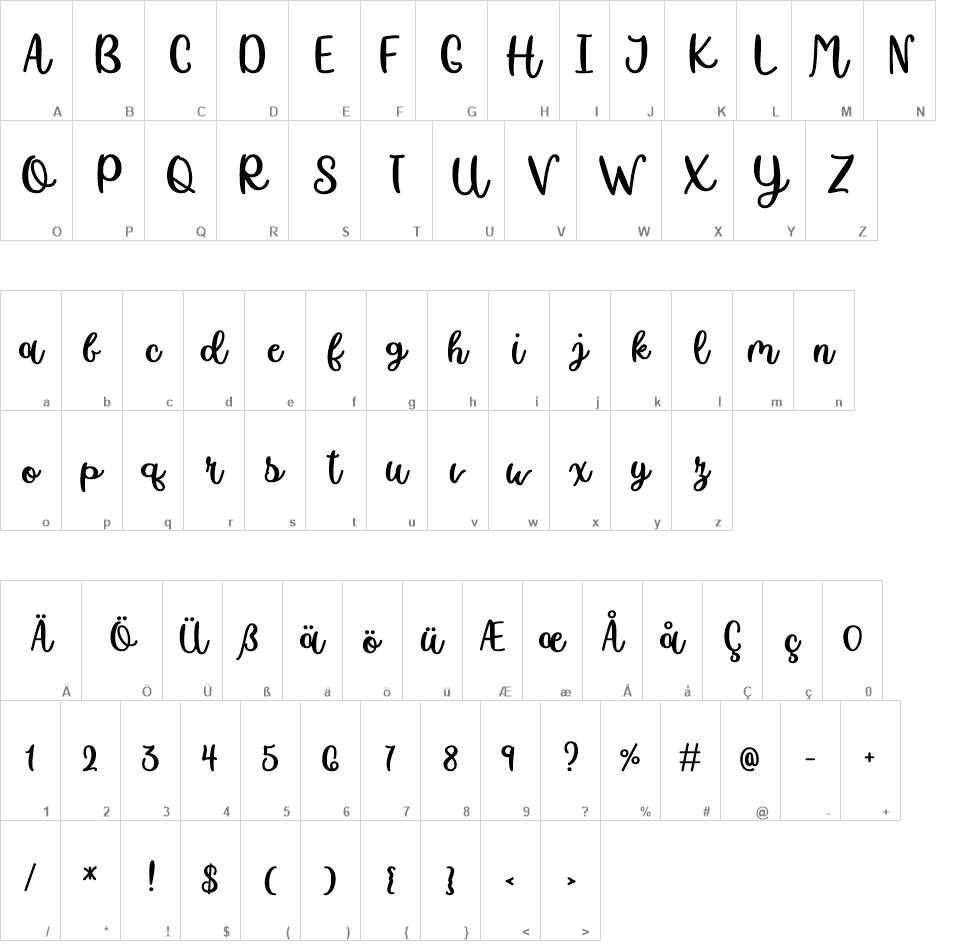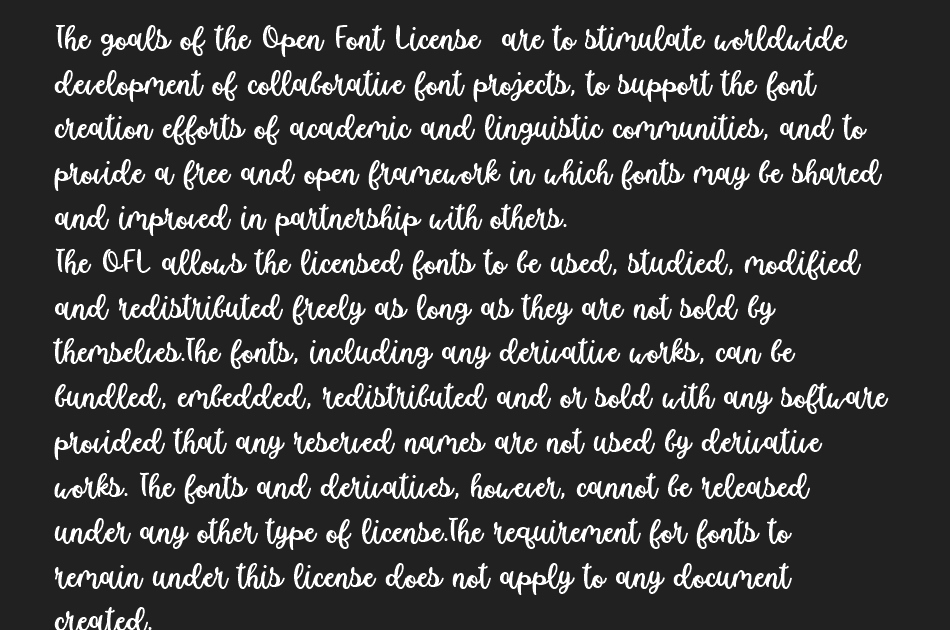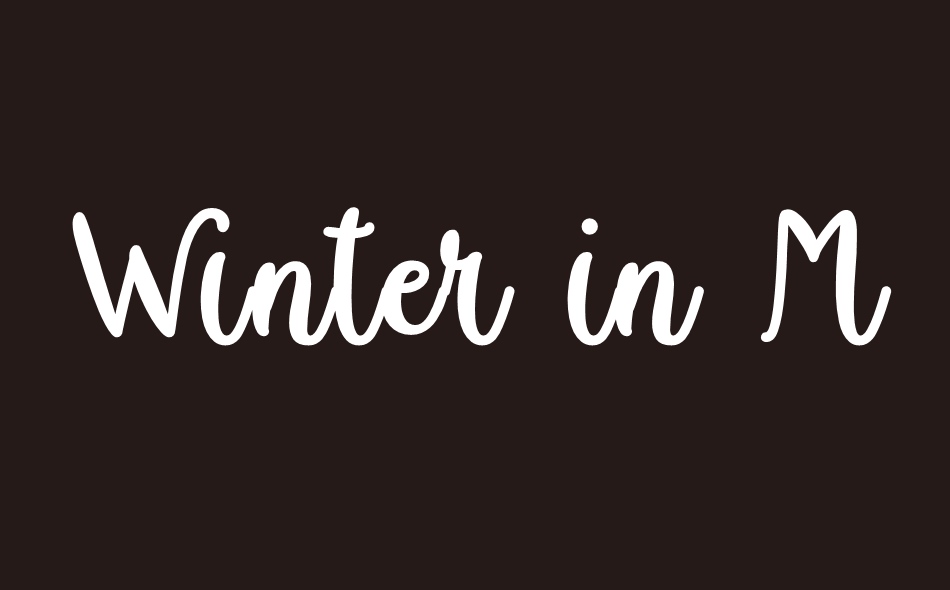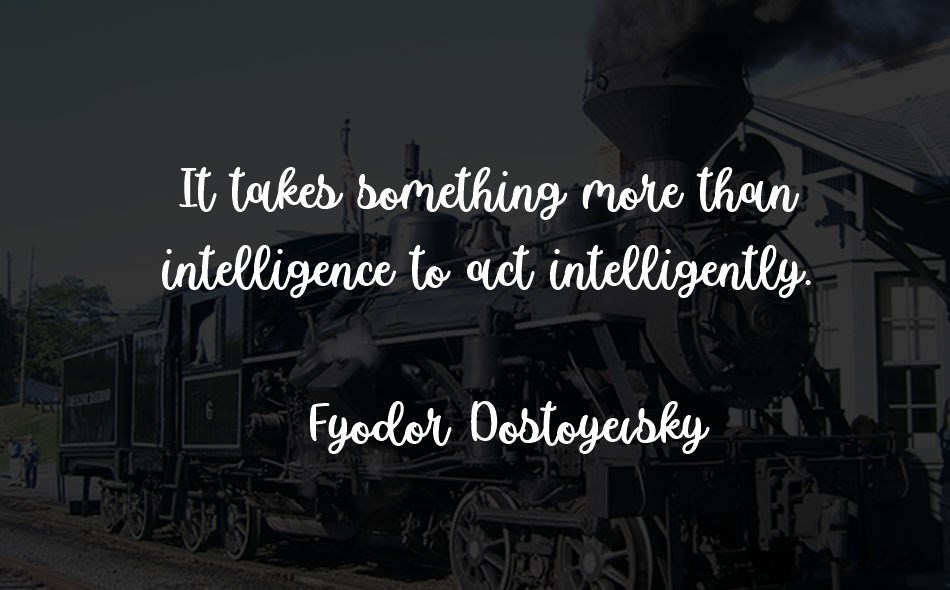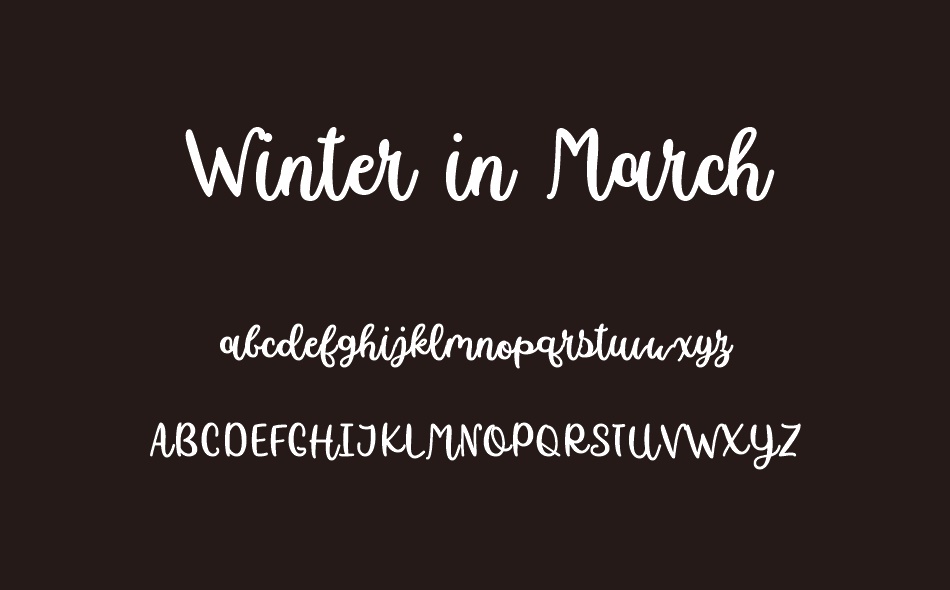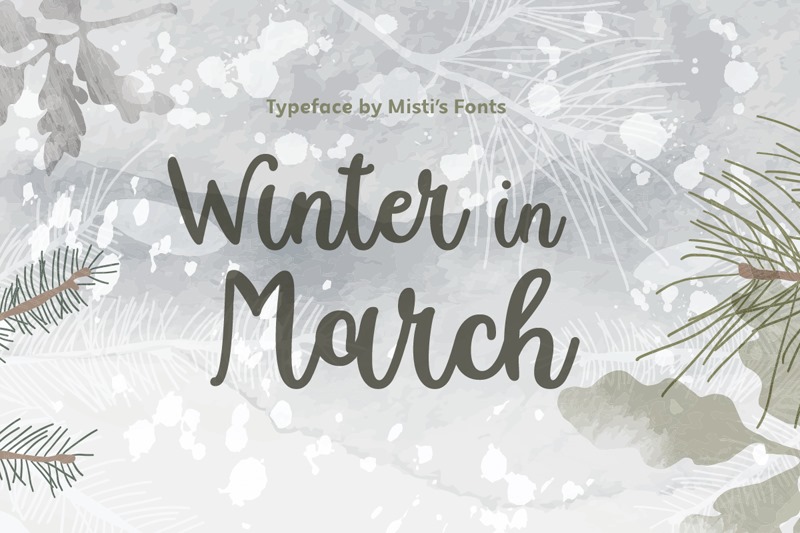
Winter in March font
Winter in March is a charming and cursive script font. It would be great on Etsy shop, logos, banners, and products. Its whimsical style makes it ideal for creating cute greeting cards and personalized items, as well as cartoon or holiday-themed projects.